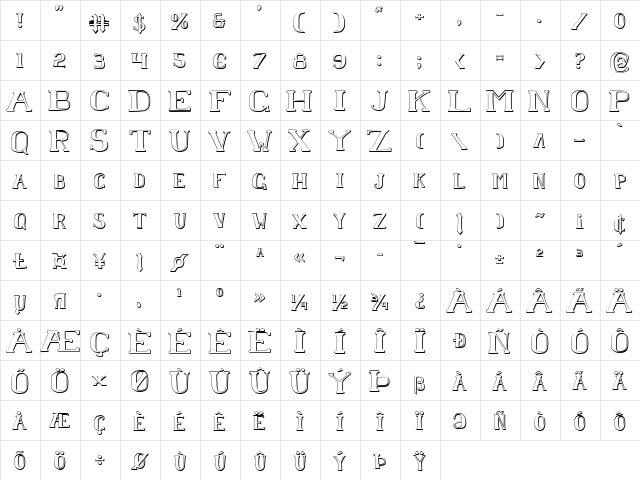
Chardin Doihle Shadow Regular
Design Context for Chardin Doihle Shadow Typeface
Chardin Doihle Shadow is built around its visual character rather than neutral utility — its distinctive forms are designed to make an impression at display sizes.
Font Pairing: Pair with a clean neutral sans-serif for body copy to let Chardin Doihle Shadow's character lead without overwhelming the composition.
Pro Tip: Treat Chardin Doihle Shadow as the centrepiece of your typographic hierarchy. One strong heading set in a decorative face can carry an entire layout.